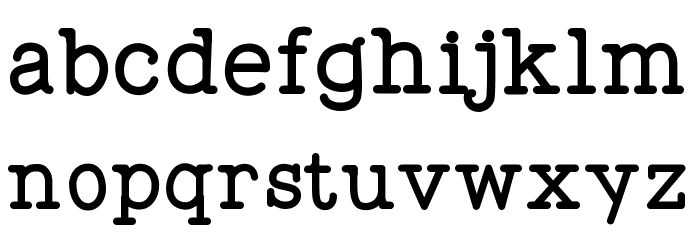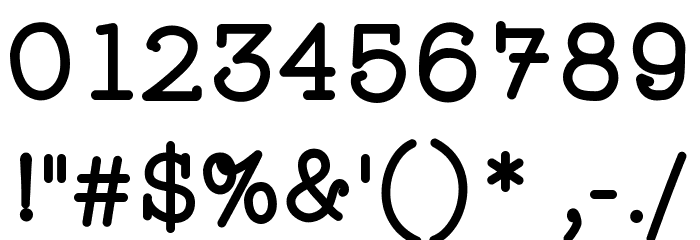
WigendaTypewrite-Bold Font
This typeface exudes a classic typewriter aesthetic with a bold presence. The characters are monospaced, giving a uniform and structured appearance. Each letter is distinct, with rounded edges and a consistent stroke width that enhances readability. The font maintains a vintage charm while being bold enough to stand out in modern designs. Its simplicity and clarity make it versatile for various applications, from digital to print media. The numerals and special characters are crafted with the same attention to detail, ensuring a cohesive look across all text elements.
A bold, monospaced typewriter-style font with a vintage charm.
- Proposed Projects: Ideal for retro-themed designs, coding interfaces, typewriter art, and any project requiring a classic, bold typewriter look.
- Overall Style: Vintage